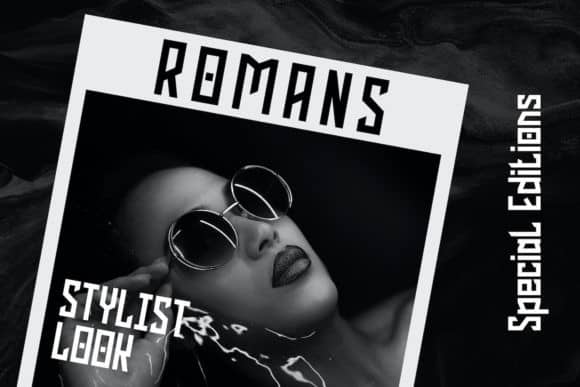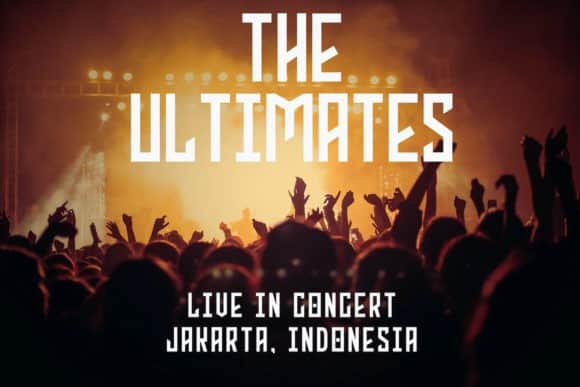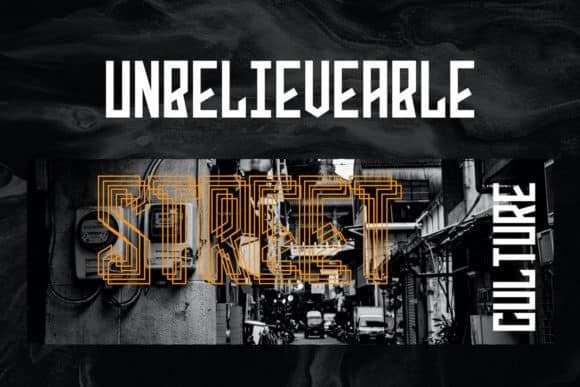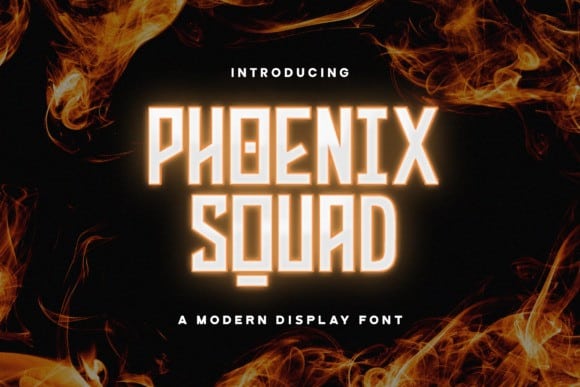
Phoenix Squad Display Font is a monospaced font gives the impression of being clean and modern, It’s Perfect forlogos, posters, album covers, and website headers. Made from font designer named StringLabs. This typeface is a modern and bold display font. Add this font to your favorite creative ideas and notice how it makes them come alive!